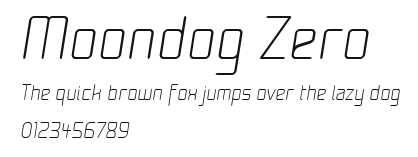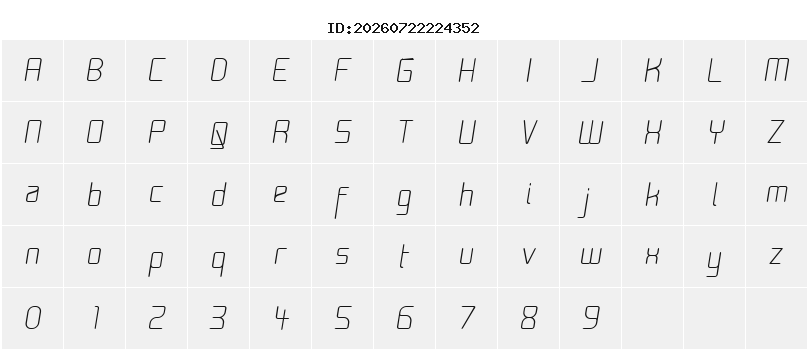
• Font Name: Moondog Zero
• Designer: Graham Meade & Apostrophe
About Moondog Zero.ttf
Moondog Zero.ttf is a modern, elegant sans-serif font designed for ultimate readability and visual harmony. Perfect for branding, headlines, web design, and print materials.